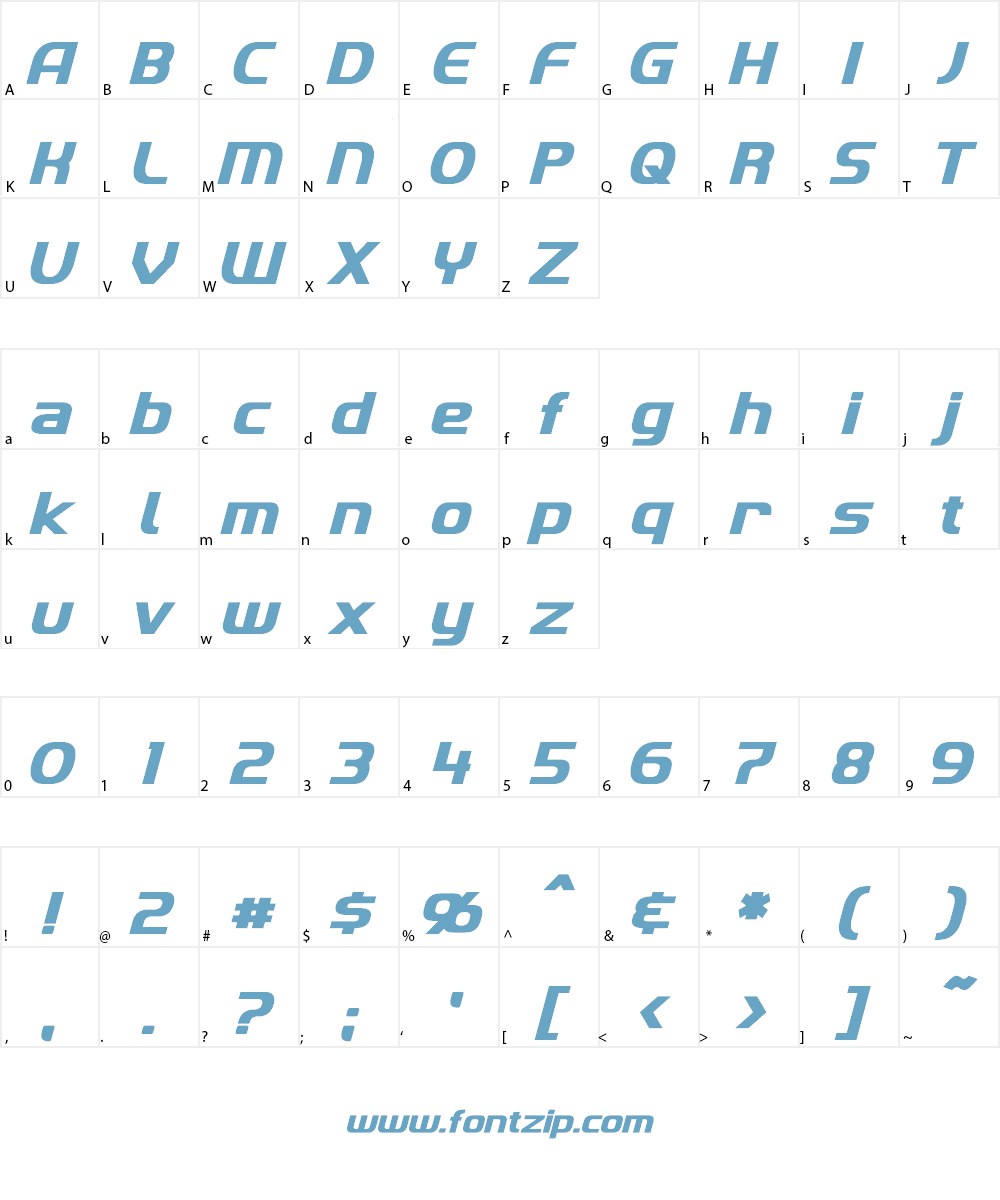
This slick, techno typeface is heavily inspired by the character logo of Takara’s Beast Wars Metals series. Includes full alphabet, extended punctuation and accents, Euro. Imaki is available in bold, italic, bold-italic, and condensed weights.